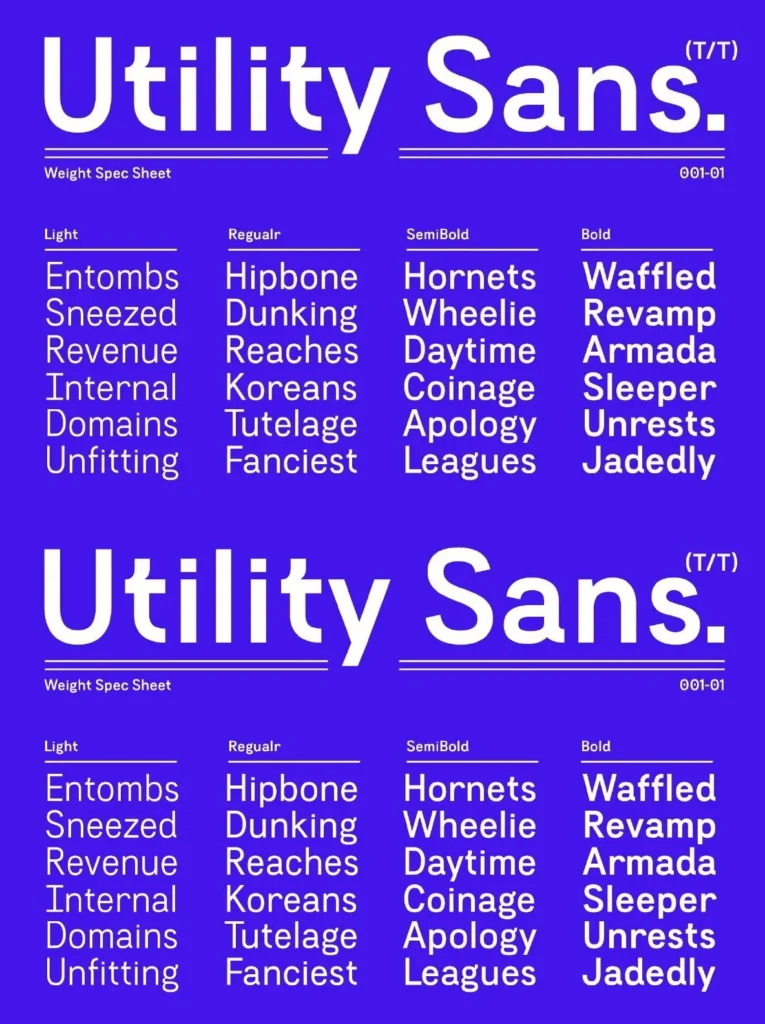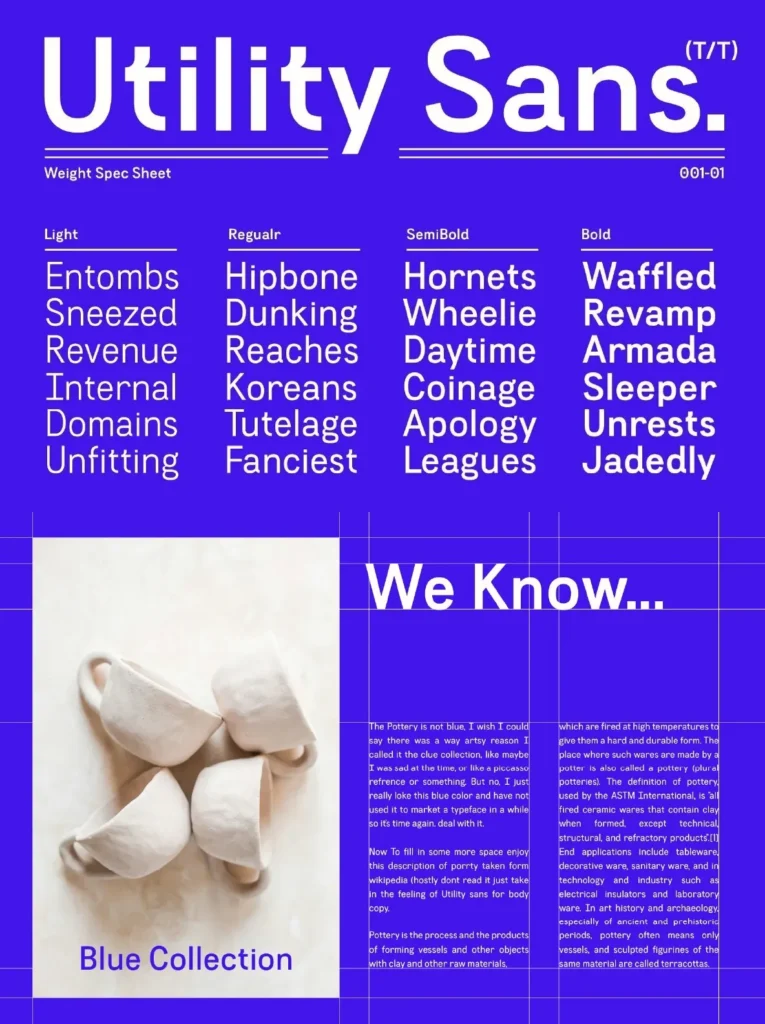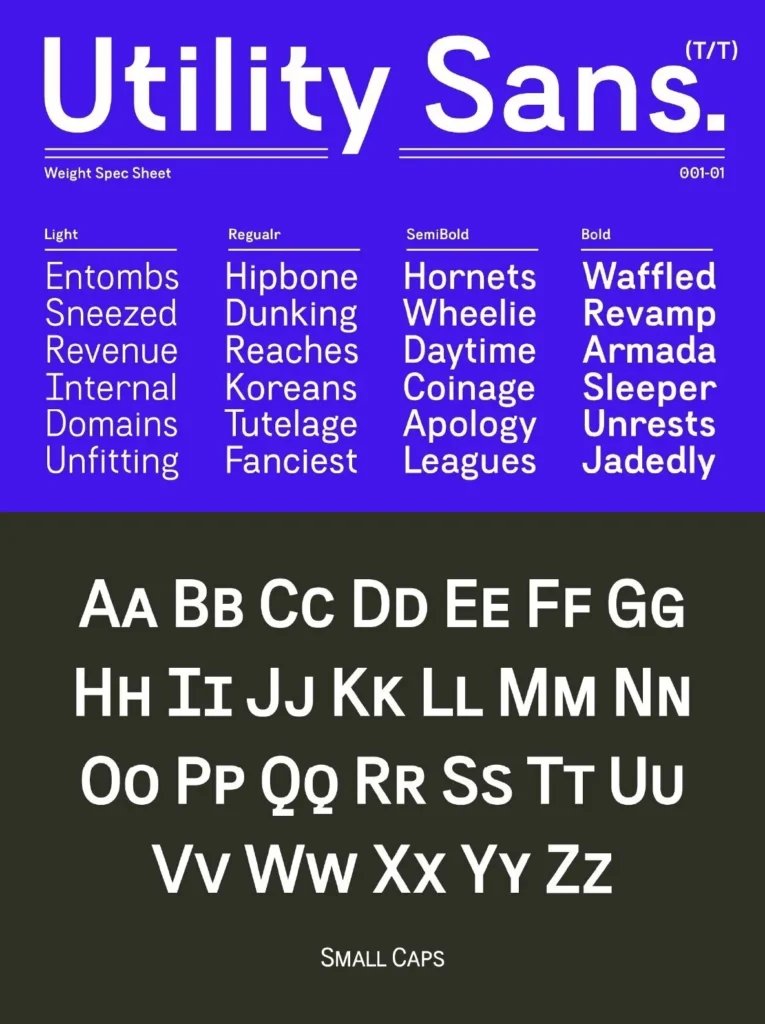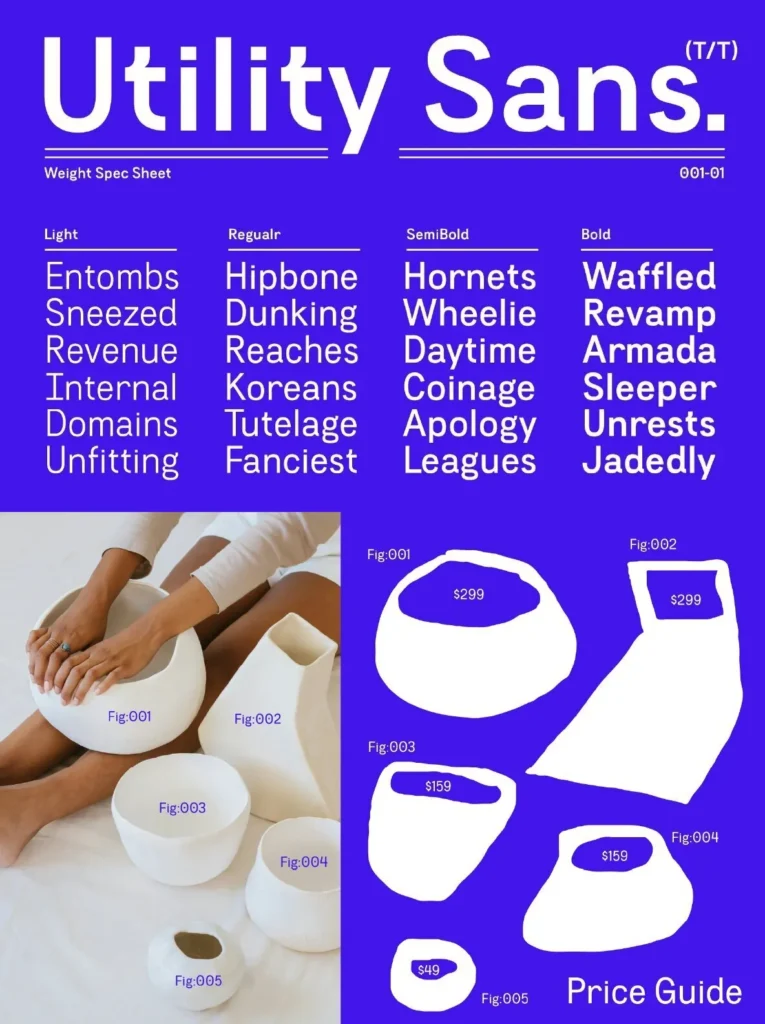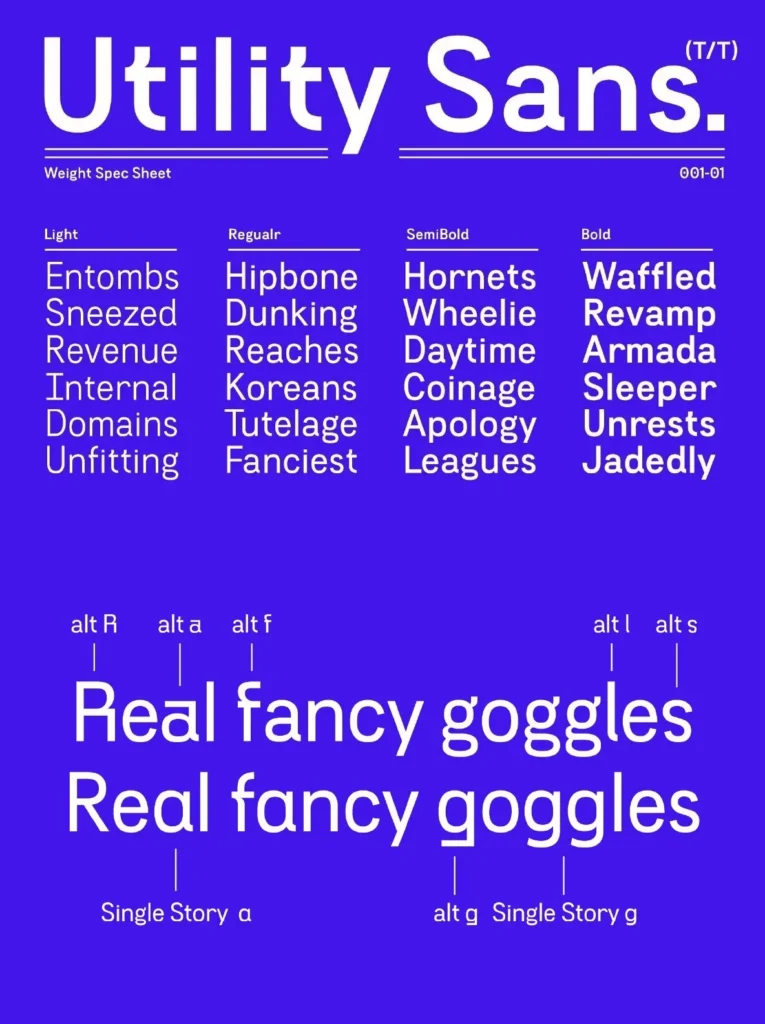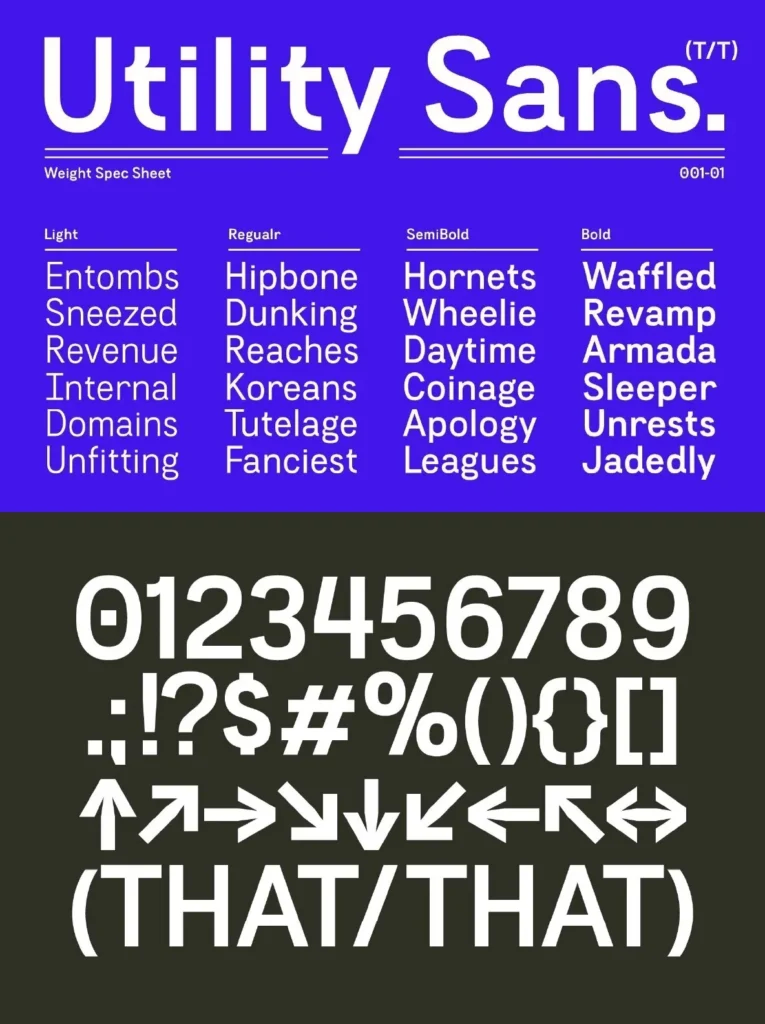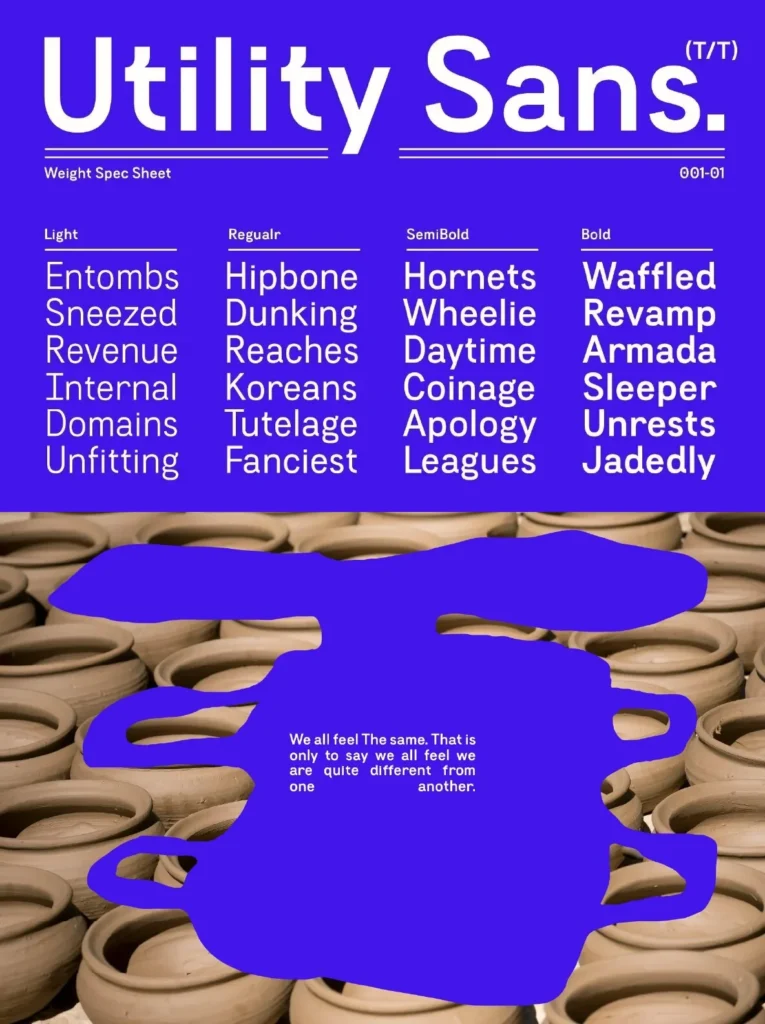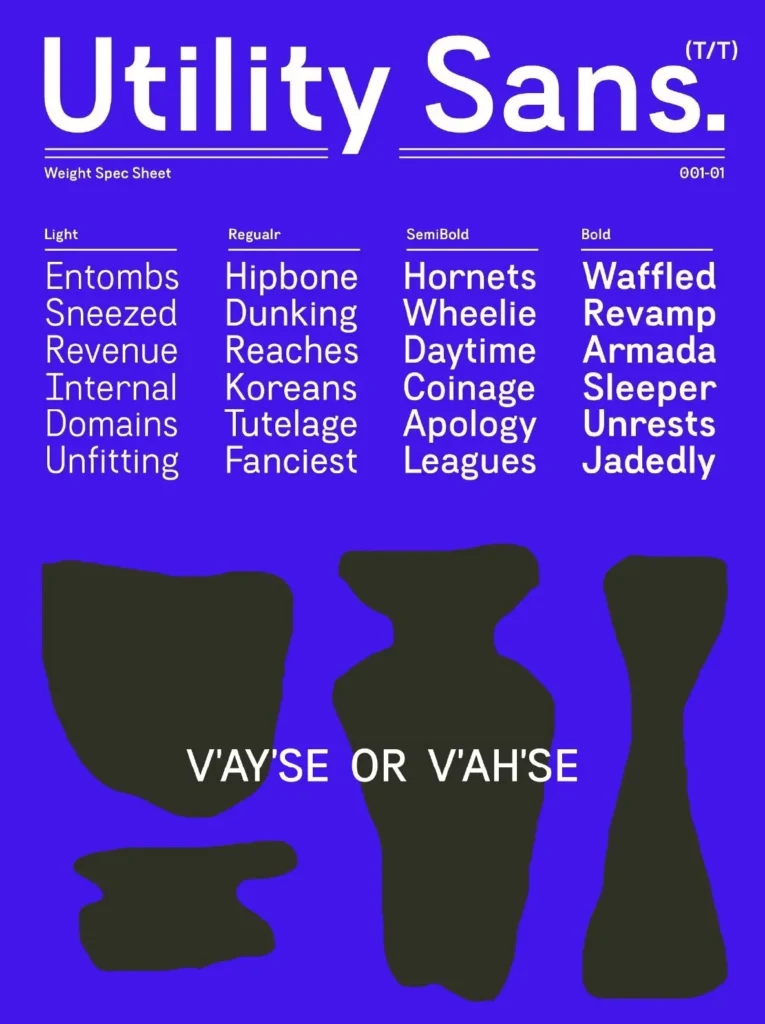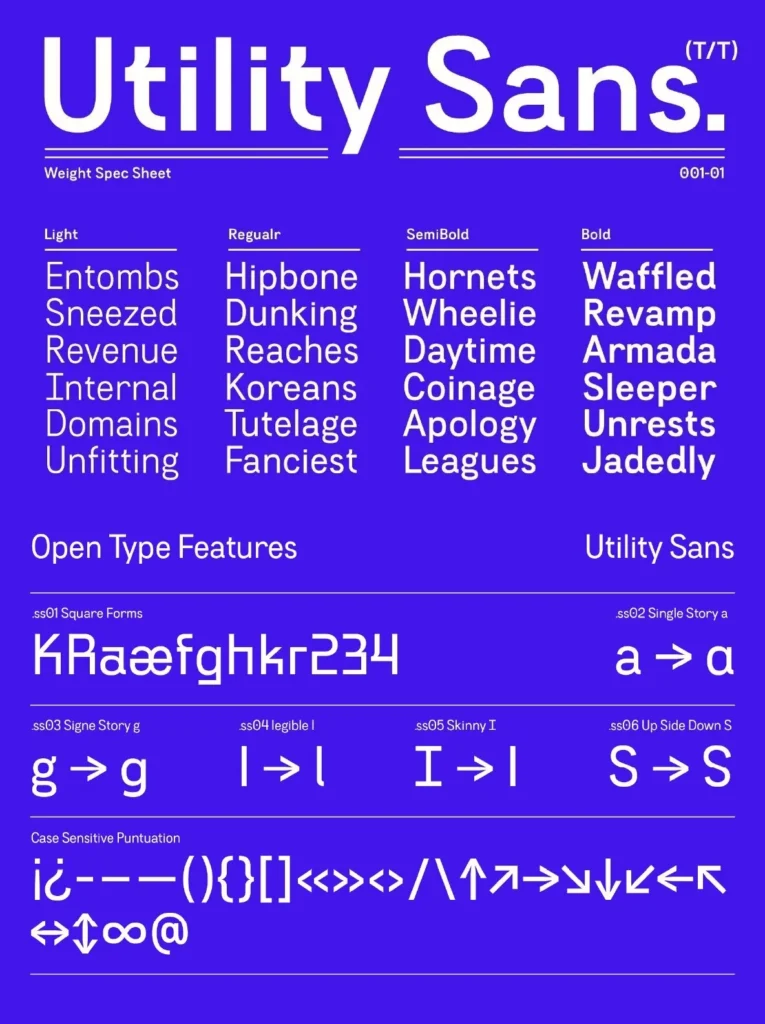
Utility Sans: Practical clarity with tech edge
A versatile variable sans font that pairs businesslike efficiency with a touch of personality. Subtle square details give the letterforms a modern, technical feel, while the overall tone stays professional and easy to use across everyday design systems.
Designed by That That, this typeface suits posters, magazines, branding, and social media. It brings a contemporary tech vibe without reading as overly formal, making it a strong choice when you need clean communication with a bit of character.
Unique Features
Extensive Language Support
– Covers over 120 languages.
OpenType Features
– Includes case-sensitive punctuation and alternative style sets.